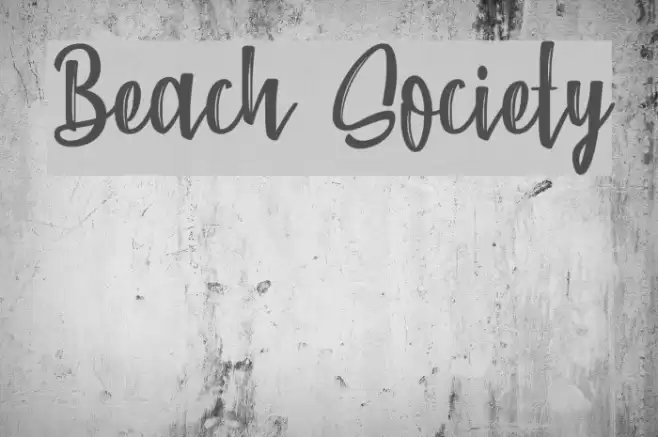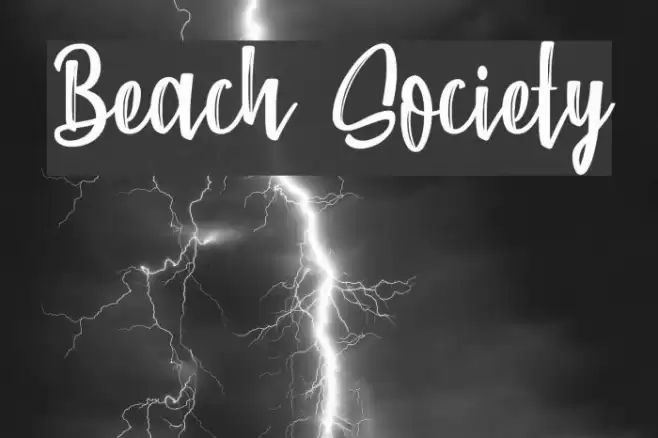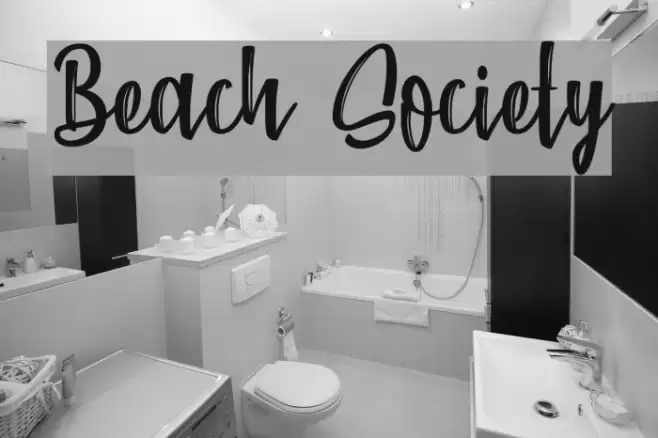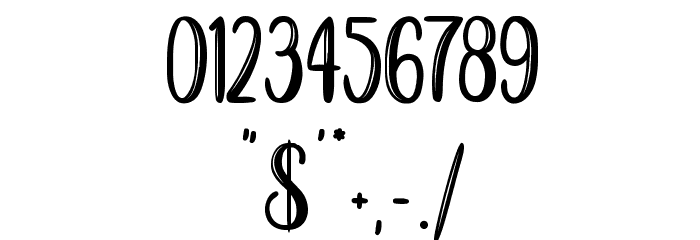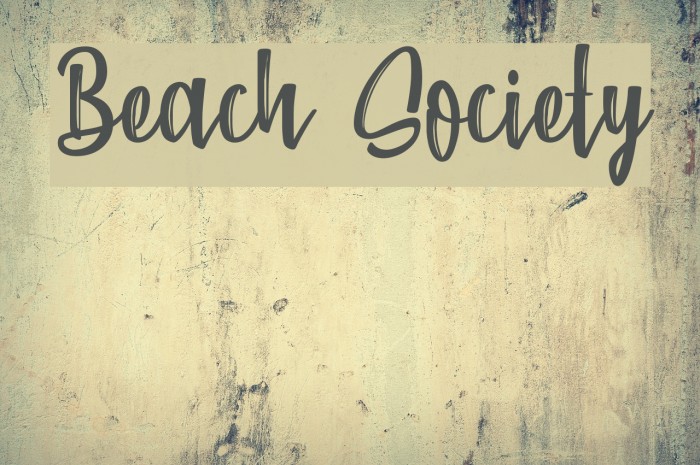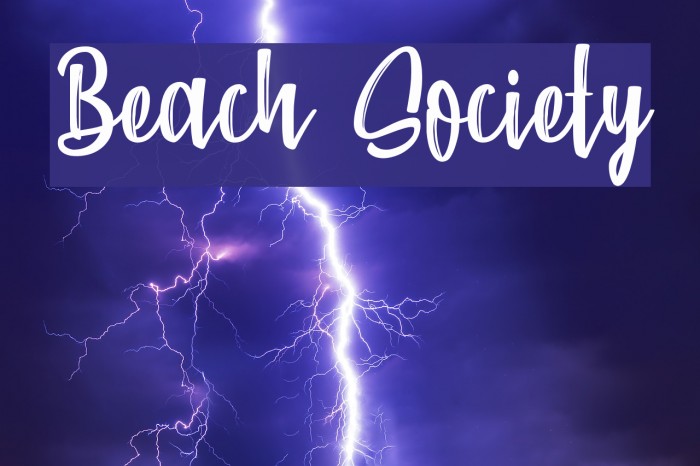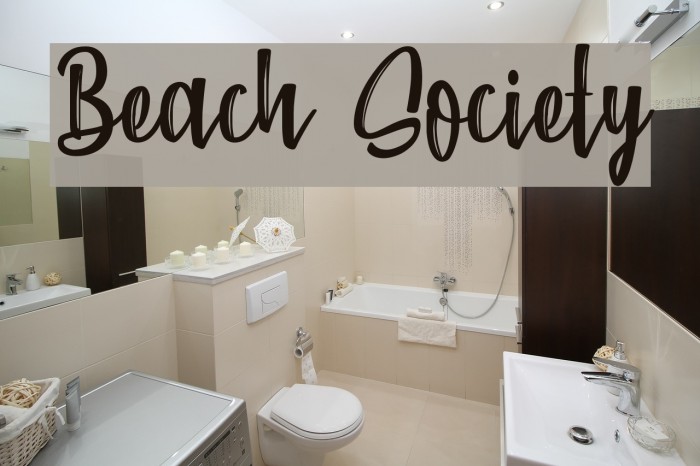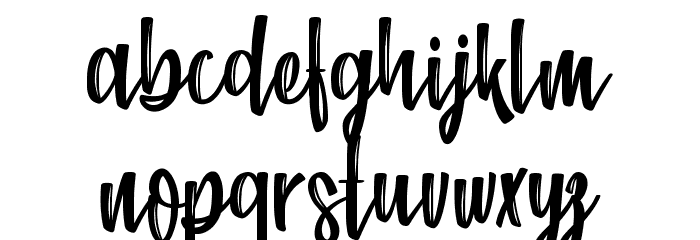
Beach Society Font
Beach Society Description
This font exudes a playful and energetic vibe, characterized by its handwritten style with a modern twist. The letters are bold and slightly slanted, giving a sense of movement and fluidity. The uppercase characters are tall and narrow, while the lowercase letters maintain a consistent flow with rounded edges. The numerals are clear and legible, matching the overall style of the alphabet. Special characters are creatively integrated, adding to the font's unique personality. This font is perfect for projects that require a touch of casual elegance and a lively spirit.
A playful, handwritten font with a modern, energetic style from Uncategorized fonts.
- Proposed Projects: Ideal for branding, social media graphics, invitations, and creative projects requiring a lively, personal touch.
- Use Case: Logos, Headlines, Invitations